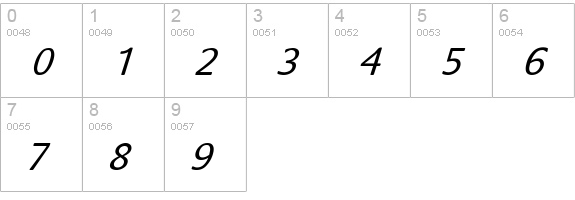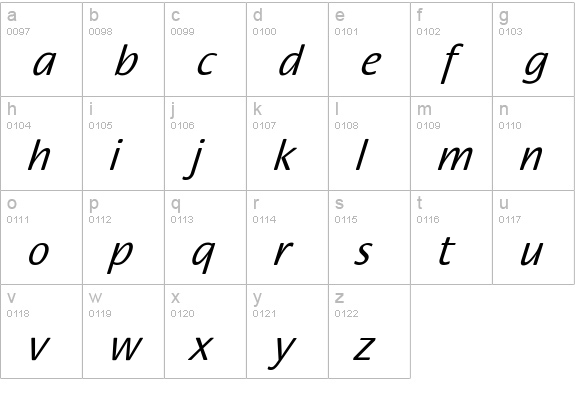
StackObl-Normal Font Details
StackObl-Normal is the standard, neutral variant in the StackObl typeface family \xE2\x80\x94 well suited to general body text, paragraphs, and standard typographic work.
StackObl-Normal is a beautifully designed font that effortlessly blends elegance with simplicity. With its clean lines and modern aesthetic, this font is perfect for a wide range of design projects. Whether you're creating a logo, designing a website, or crafting a captivating poster, StackObl-Normal will add a touch of sophistication to your work. One of the most appealing aspects of StackObl-Normal is that it is freely available to download at FontsMarket.com. This means that you can enjoy the benefits of this stunning font without having to spend a dime. Whether you're a professional designer or a passionate hobbyist, having access to high-quality fonts like StackObl-Normal can make a world of difference in your projects. The versatility of StackObl-Normal is truly impressive. Its clean and legible letterforms make it ideal for both display purposes and body text. The well-balanced proportions ensure that every character fits seamlessly together, creating a harmonious and visually pleasing overall look. StackObl-Normal also boasts an extensive character set, including upper and lowercase letters, numerals, punctuation, and special characters. This comprehensive range of glyphs allows you to express yourself creatively and add unique touches to your designs. In addition to its aesthetic appeal, StackObl-Normal also offers exceptional readability. The carefully crafted letterforms ensure that each character is easily distinguishable, making it effortless for readers to engage with your content. This is especially important for websites and other digital platforms, where readability plays a crucial role in user experience. Overall, StackObl-Normal is a must-have font for any designer or creative enthusiast. Download it for free at FontsMarket.com and unlock a world of possibilities for your design projects. With its timeless elegance and versatile nature, StackObl-Normal is sure to become your go-to font for all your design needs.